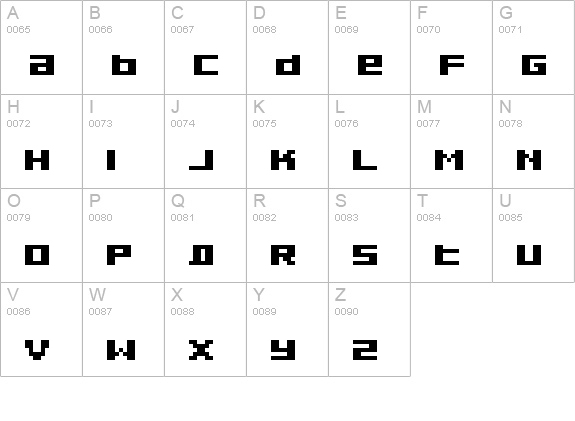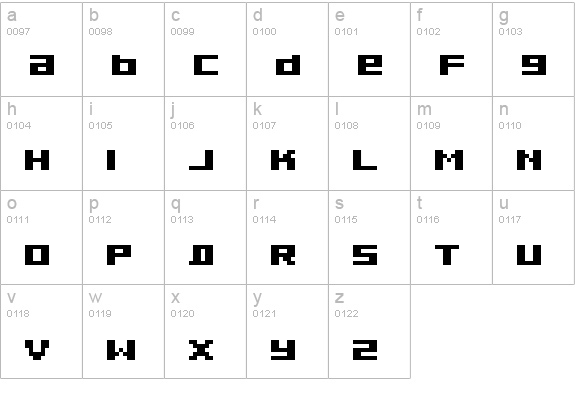
Pixeldust Bold Font Details
Pixeldust Bold is a strong, high-contrast variant in the Pixeldust typeface family \xE2\x80\x94 well suited to headlines, attention-grabbing titles, and strong calls-to-action.
Introducing Pixeldust Bold, a stunning font that will ignite your design projects with an irresistible burst of energy! This bold and dynamic typeface is meticulously crafted to captivate and inspire, making it the perfect choice for any creative endeavor. Pixeldust Bold is a modern interpretation of the classic pixelated font, beautifully blending the nostalgic charm of retro video games with a contemporary twist. Its robust and striking letterforms command attention, allowing your designs to stand out from the crowd. With its clean lines and sharp edges, Pixeldust Bold exudes a sense of confidence and strength. Whether you're designing a logo, a website, or a poster, this font will add a touch of boldness and personality to your creations. Its versatility makes it suitable for a wide range of applications, from branding to editorial design and everything in between. What's even better is that Pixeldust Bold is available for free! Yes, you heard it right. You can freely download this incredible font at FontsMarket.com, a trusted source for high-quality fonts. This means that you can add Pixeldust Bold to your font library without breaking the bank, allowing you to unleash your creativity without any limitations. So, what are you waiting for? Elevate your designs to new heights with Pixeldust Bold. Download it now for free at FontsMarket.com and let your imagination run wild!